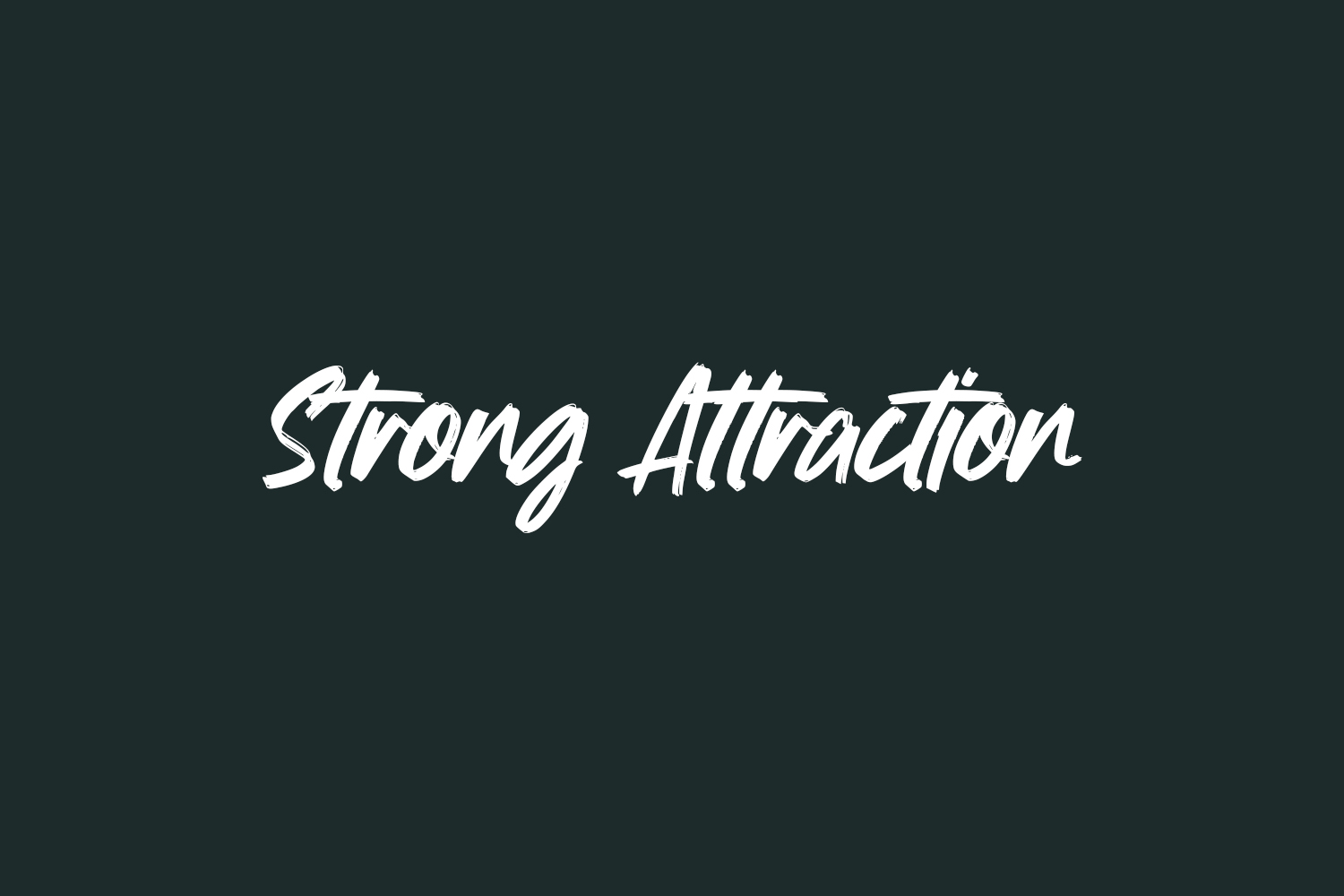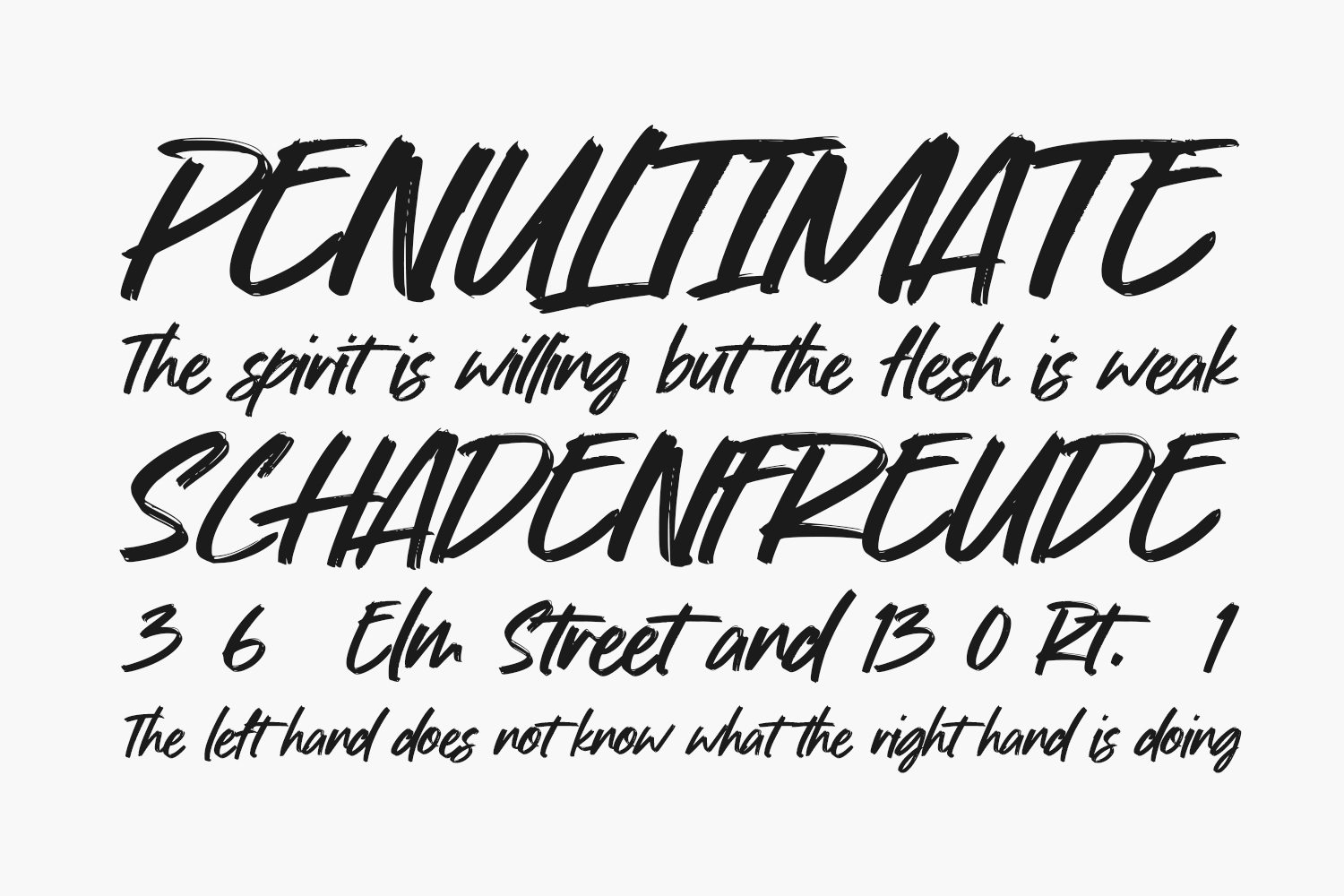
Experience the contemporary allure of Strong Attraction Free Font, a display font featuring a sophisticated brushed texture. Its authentic and classy characters make it an excellent choice for a variety of creative projects, including watermarks and photography. Perfect for logos, branding, invitations, advertisements, product designs, stationery, weddings, labels, packaging, special events, or anything requiring an authentic touch. Elevate your designs with the distinct taste of Strong Attraction. Strong Attraction Free Font is free for personal use only. Please purchase the full version for commercial use.